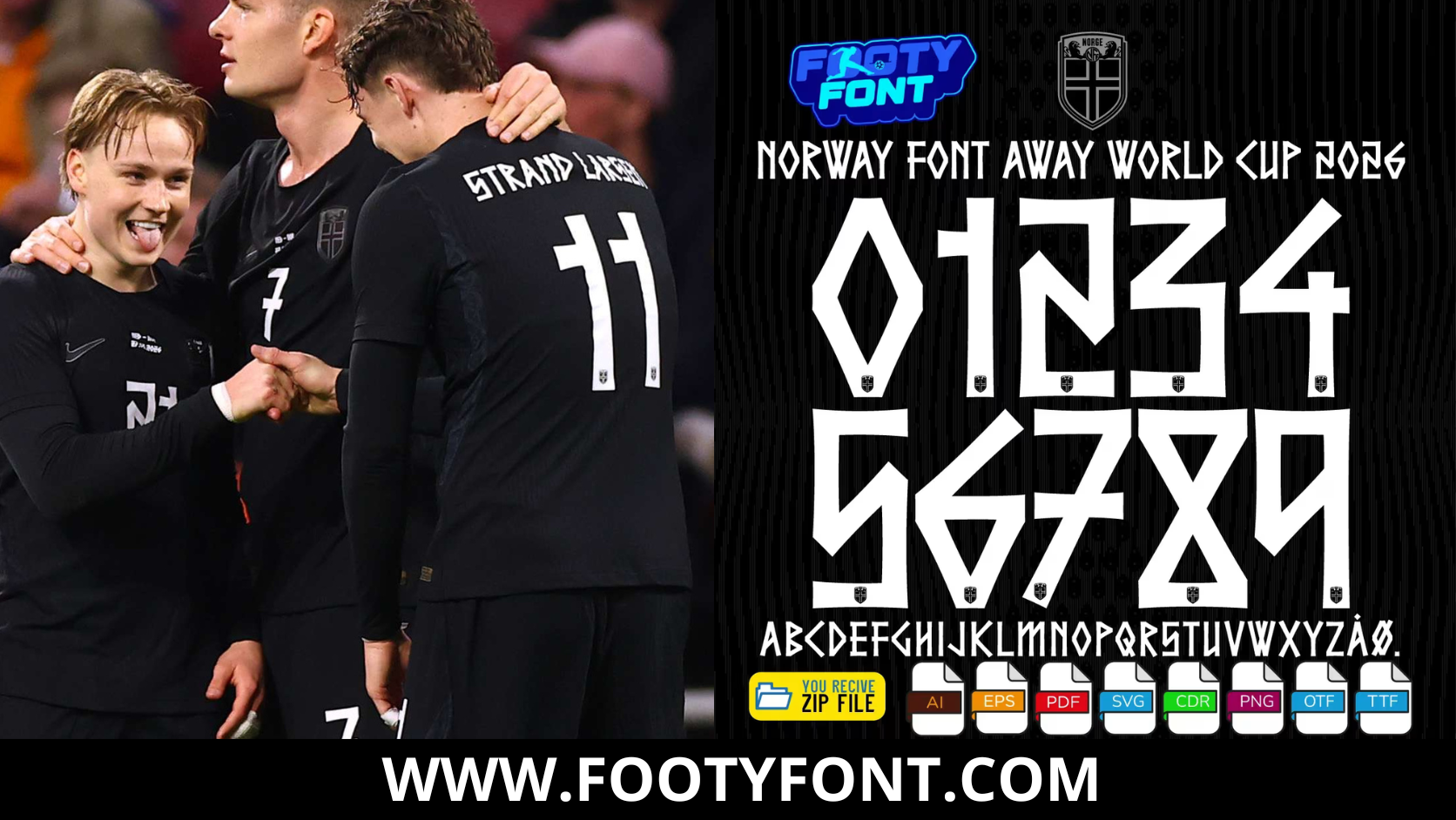
Norway 2026 Football Font
Channel the intimidating Viking spirit of the Løvene (The Lions) on the road with this font football, inspired by the Norway 2026 World Cup away kit. This high-quality typeface is meticulously designed to replicate the highly unique, Norse-runic lettering worn by the Norwegian National Team. It features striking white, angular numbers and letters that contrast flawlessly against their sleek, dark alternative jerseys.
This font captures the powerful, elite style worn by global superstars like Erling Haaland, Martin Ødegaard, and Alexander Sørloth. As Norway looks to dominate their opponents away from home, this away font is an absolute must-have for fans creating custom jersey designs, digital art, streetwear, or matchday posters.
Composite image showing Norwegian players wearing the dark away jersey alongside the complete character set of the Norway Font World Cup 2026 Away.
A complete look at the Norway Font World Cup 2026 Away, featuring the full number set and a real-world match photo of the Norwegian national team.
Norway Font World Cup 2026 Away showing the complete alphabet and unique runic white numbers.